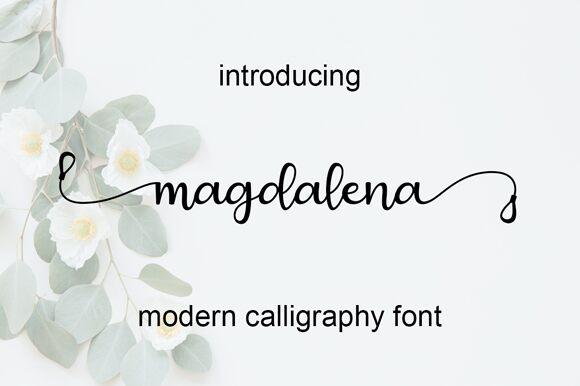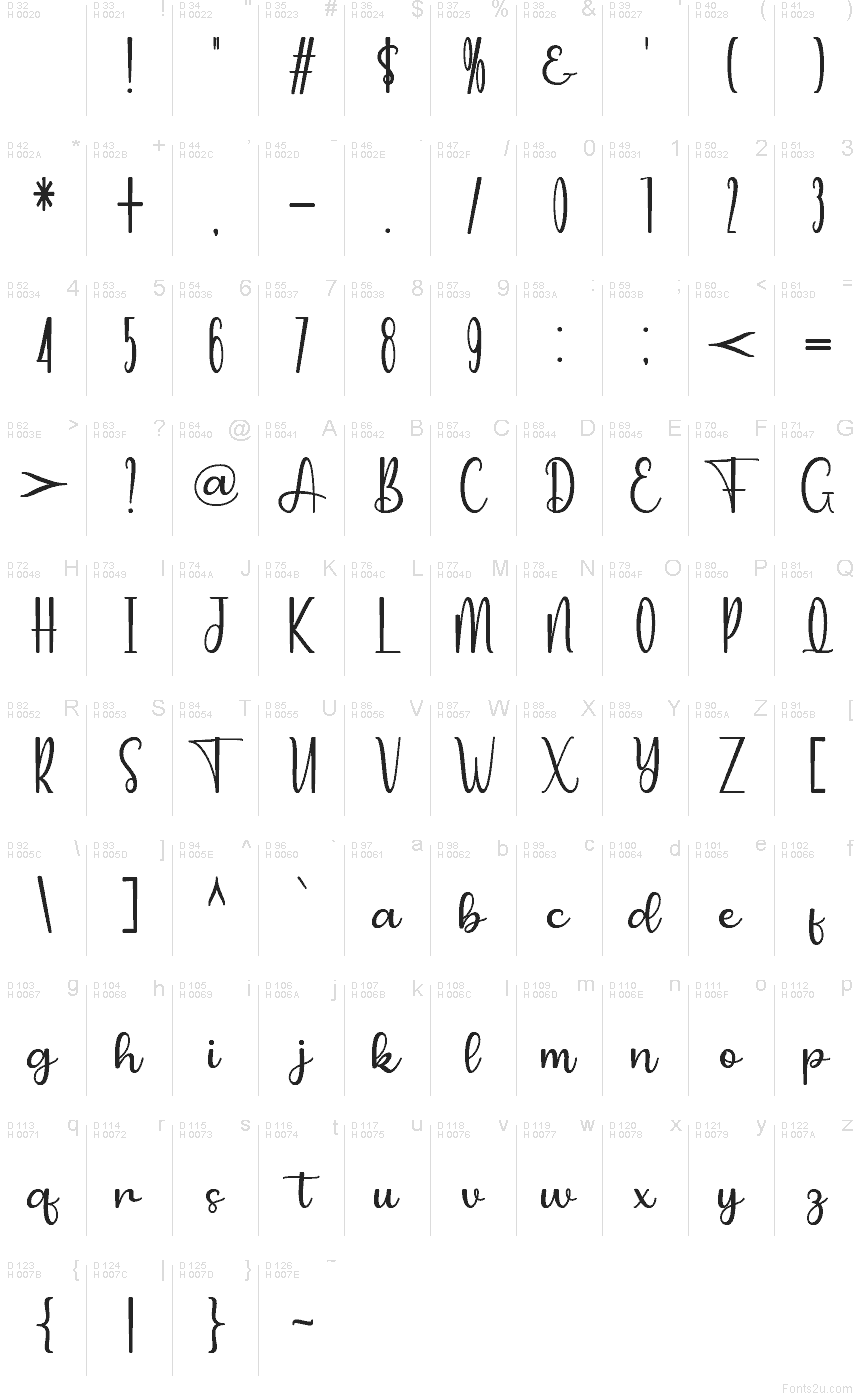
Magdalena
Magdalena font by Cavalera Creative is a free handwritten font that feels like a neat, confident signature written with a smooth ink pen. Its looping forms, gentle bounce, and even stroke weight give it a warm, approachable charm that still reads clearly at a glance. The letters connect with an easy rhythm, so text flows in soft, continuous lines rather than stiff, separate strokes.
Using Magdalena, this free font shines on wedding invitations, save-the-dates, brand logos, product packaging, quote graphics, Instagram posts, and blog headers. It brings a friendly, feminine touch without slipping into childishness, making it a natural fit for lifestyle, beauty, and boutique brands. Try pairing Magdalena with a clean sans serif in smaller text to keep things readable while letting the script handle the emotional, eye-catching words.